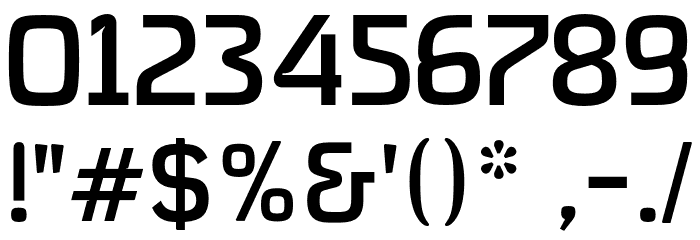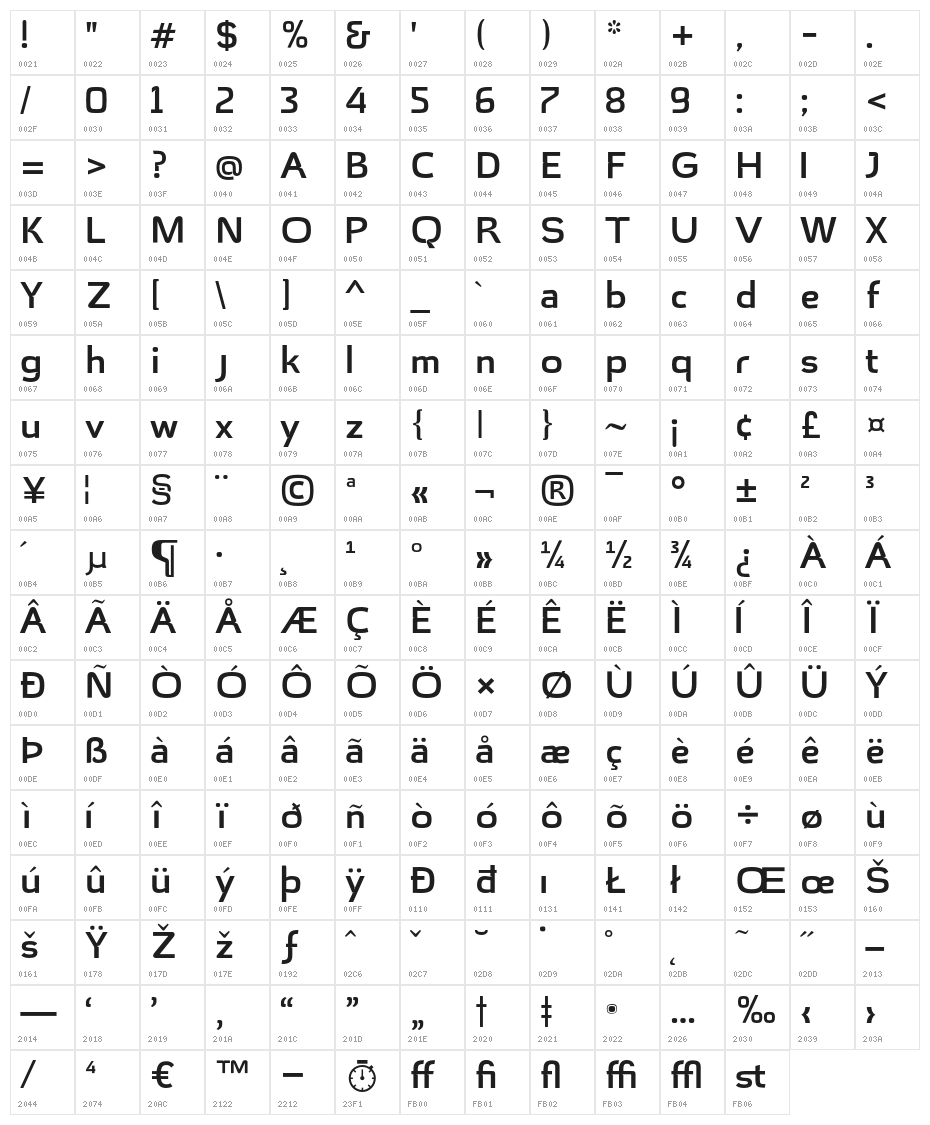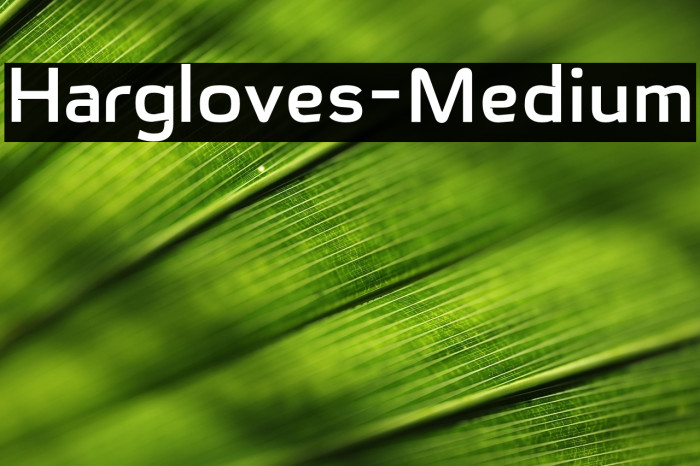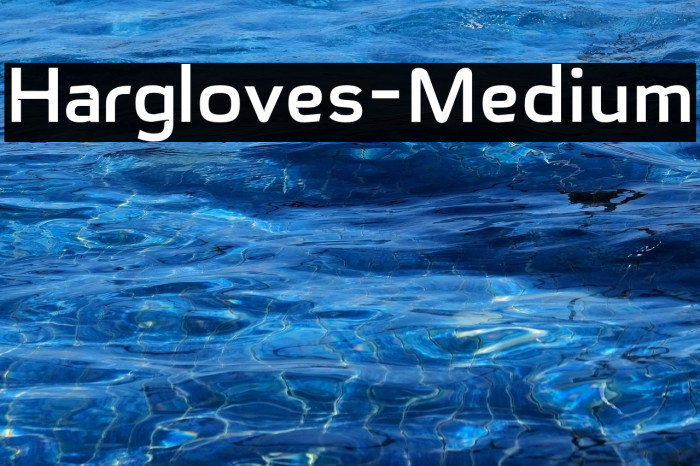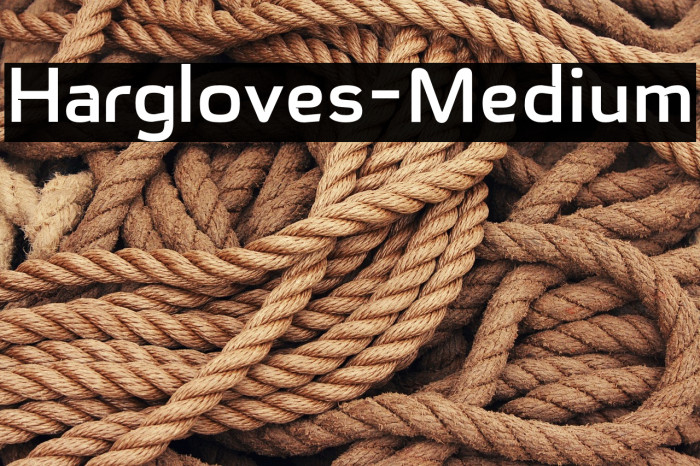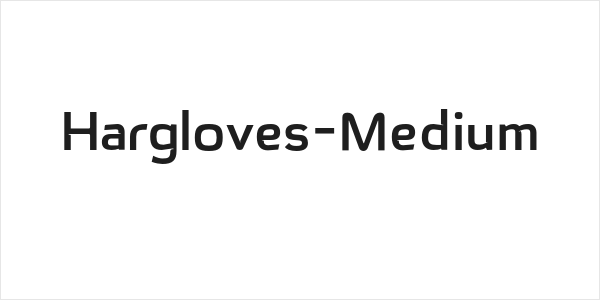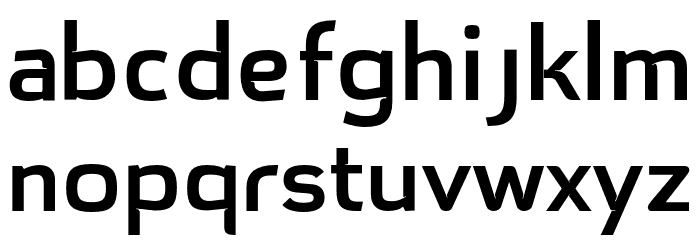
Hargloves-Medium Font
Hargloves-Medium Description
This font exhibits a clean and modern sans-serif style with a geometric structure. The characters are well-balanced, featuring uniform stroke widths that provide a harmonious appearance. The uppercase letters are bold and assertive, while the lowercase letters maintain a consistent height, enhancing readability. The numerals are clear and distinct, making them suitable for various applications. Special characters are designed with precision, ensuring they complement the overall aesthetic. This font's simplicity and clarity make it versatile for both digital and print media.